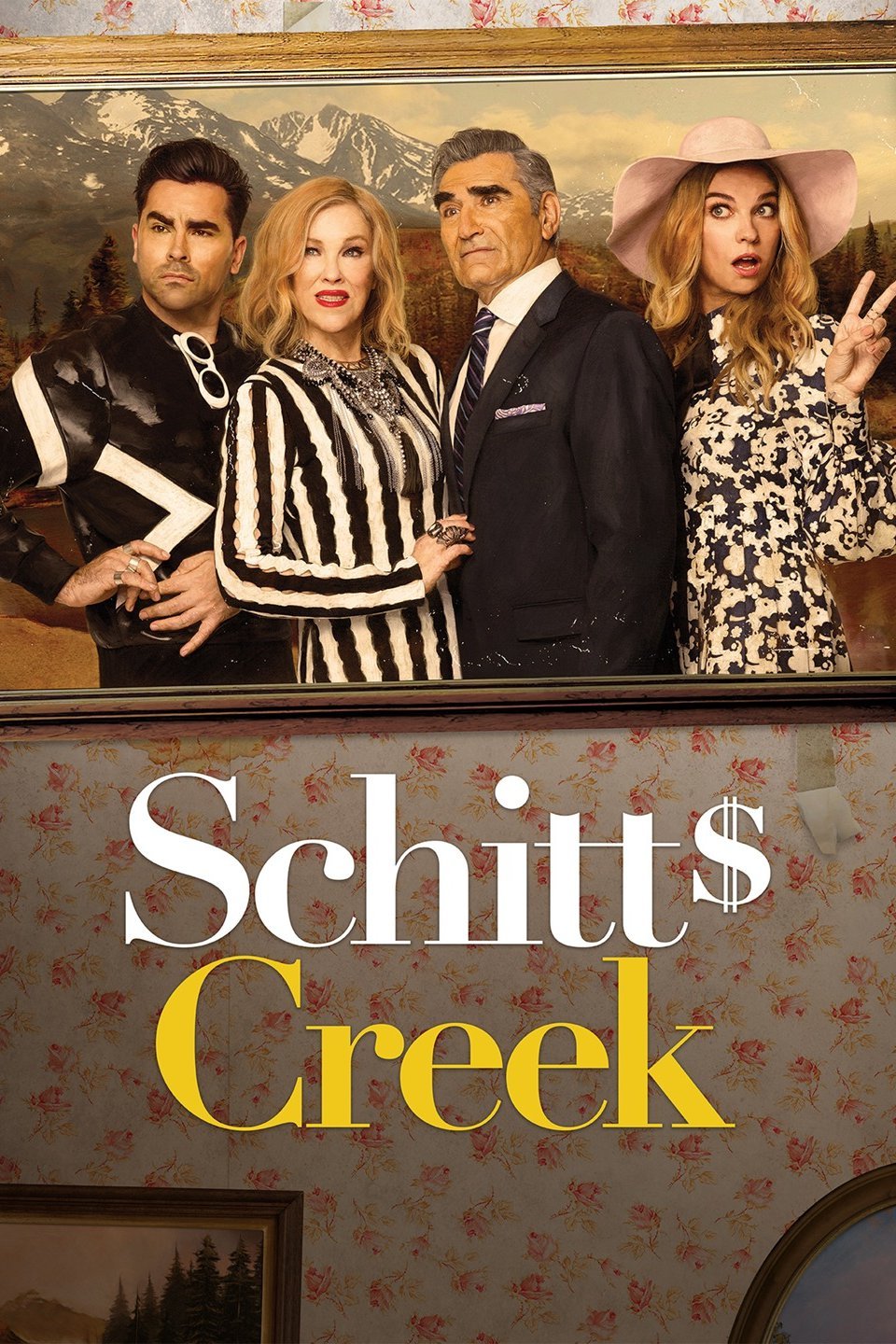
Schitt's Creek Font
ComedySchitt’s Creek is a Canadian TV series that premiered on CBC Television on January 2015. The series follows the wealthy Rose family as they adjust to living in a small town after losing all their wealth.
The title Schitt’s Creek of the TV Series uses a font called Linotype Didot Bold. Adrian Frutiger created Linotype Didot based on fonts cut by Firmin Didot between 1799 and 1811.